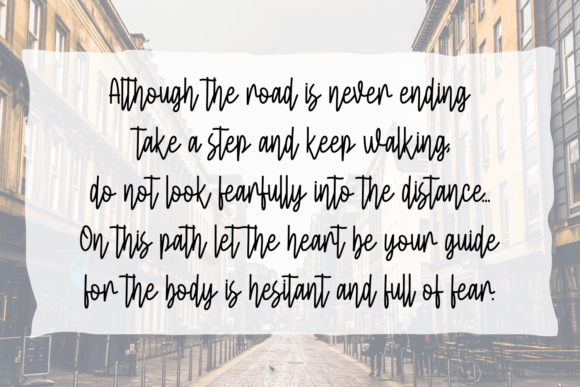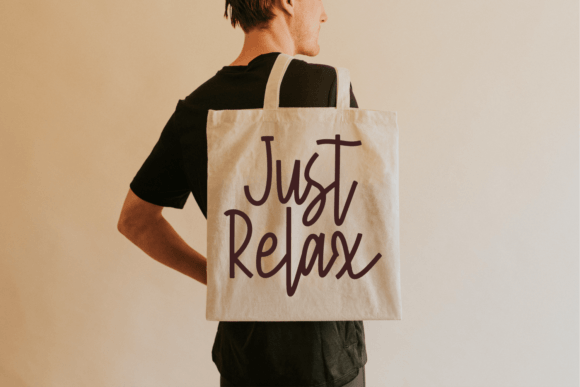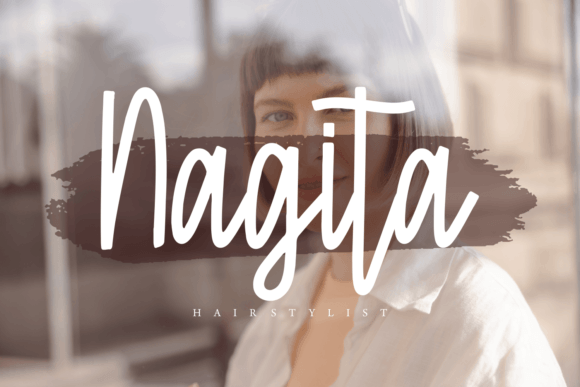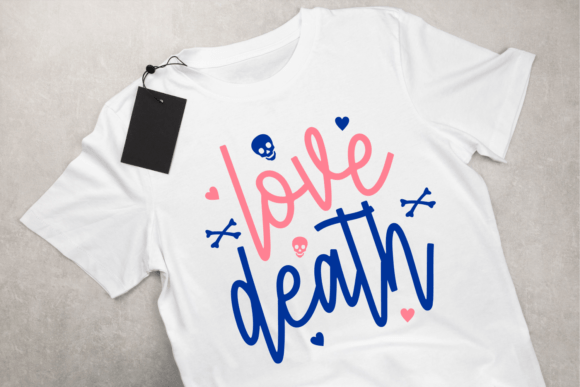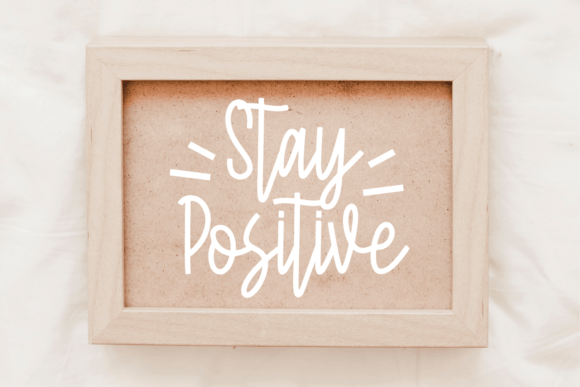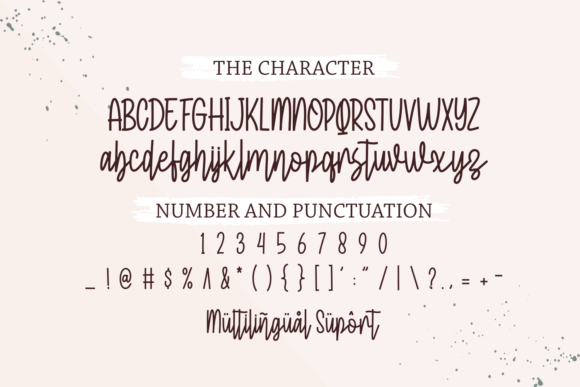
Introduction to Restou Font
A fancy and elegant handcrafted font that create to impress your audience and makes your branding shine.
Make your projects dance with this elegant and wonderful font wherever you use it Use it for your headings, logos, ads, printed quotes, packaging, and even your website or social media branding.
Key Features of Restou Font
Why Choose Restou Font?